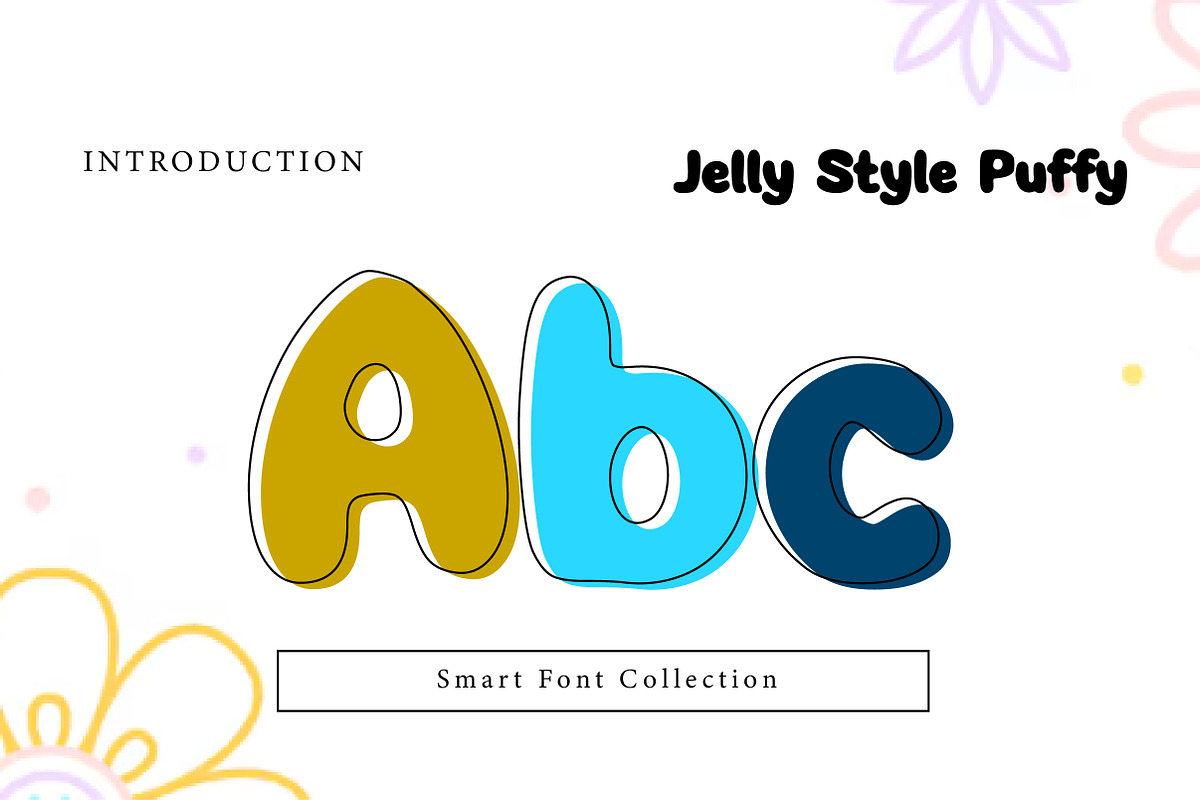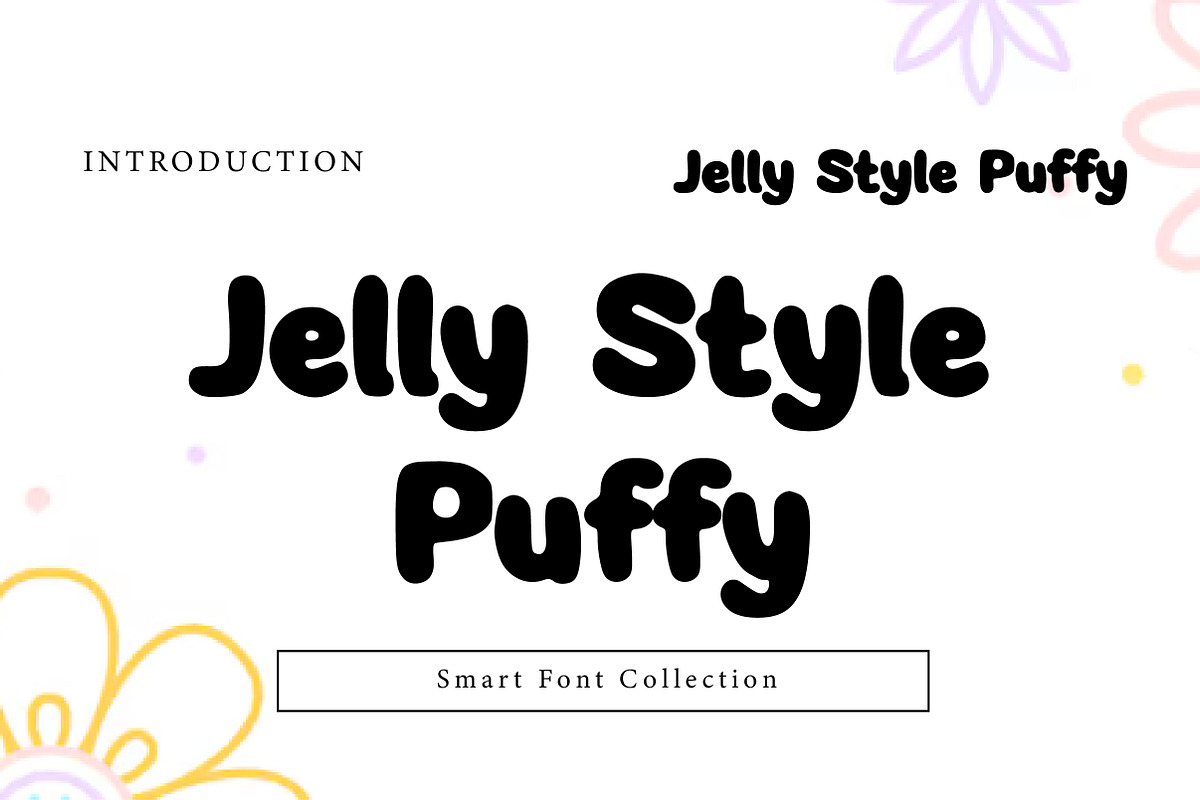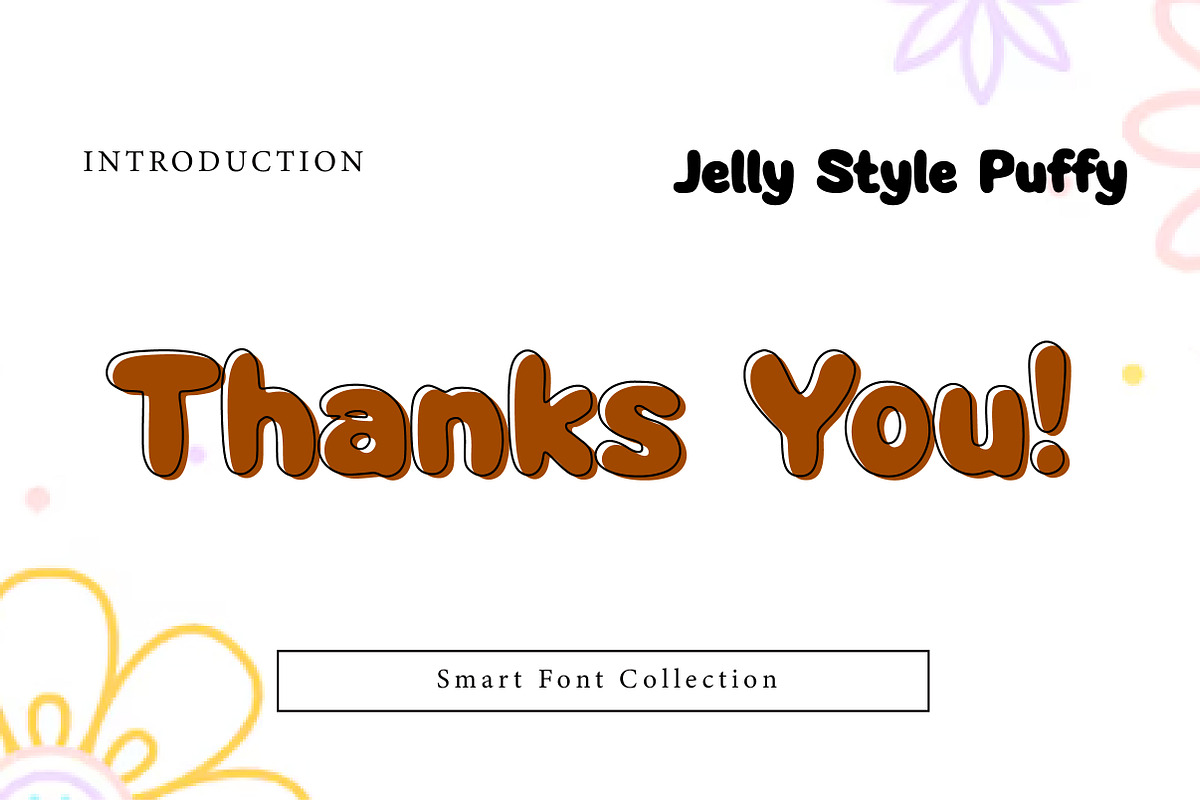
Jelly style puffy
Jelly Style Puffy is a cute, bold, rounded display font with a soft “jelly” and puffy feel. Its smooth, squishy shapes create a fun and friendly look that’s perfect for playful designs, cheerful branding, and eye-catching headlines.
Ideal for kids projects, stickers, t-shirt designs, sublimation, party invitations, classroom materials, packaging, logos, social media graphics, YouTube thumbnails, and cute quote designs. Jelly Style Puffy brings a bubbly, modern vibe that feels sweet, fun, and super readable.
Perfect for: Kawaii themes, children’s designs, birthday projects, playful branding, and colorful product labels.